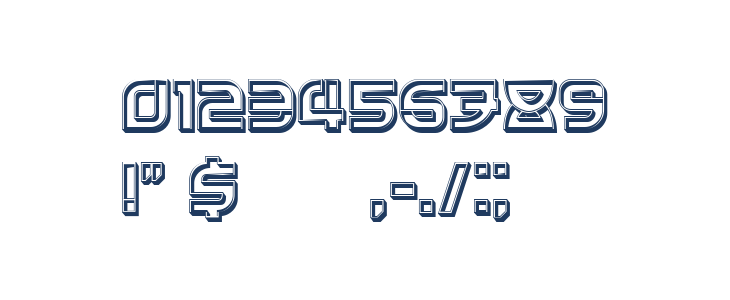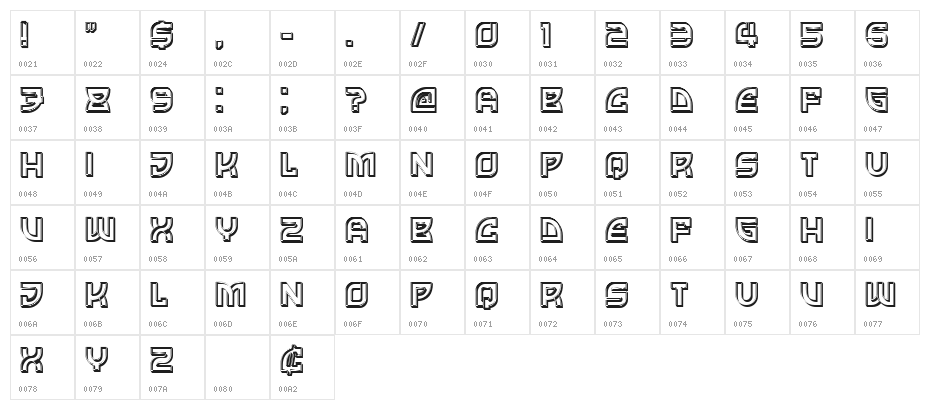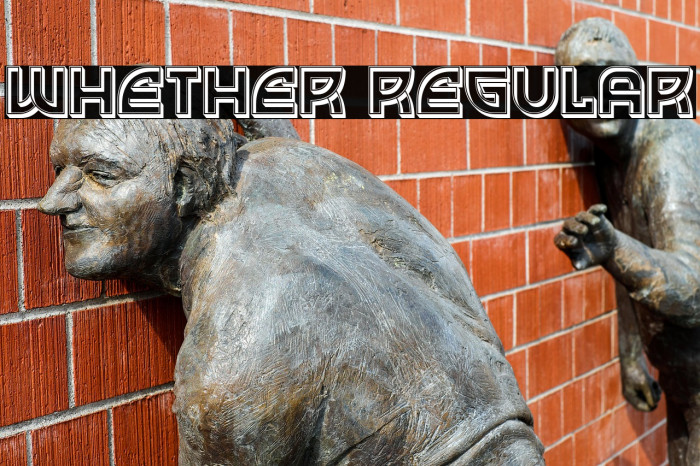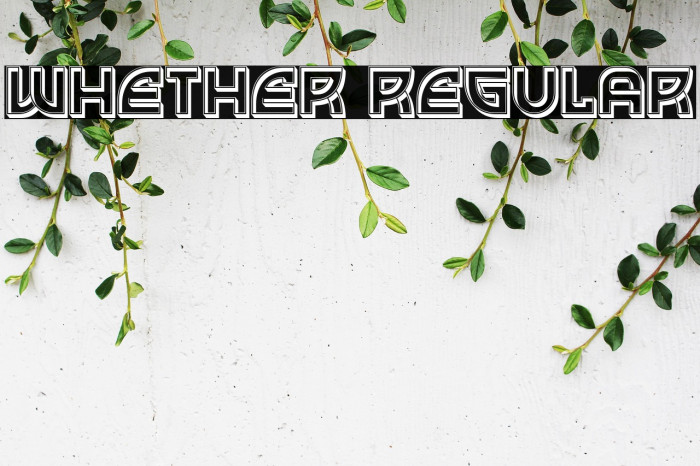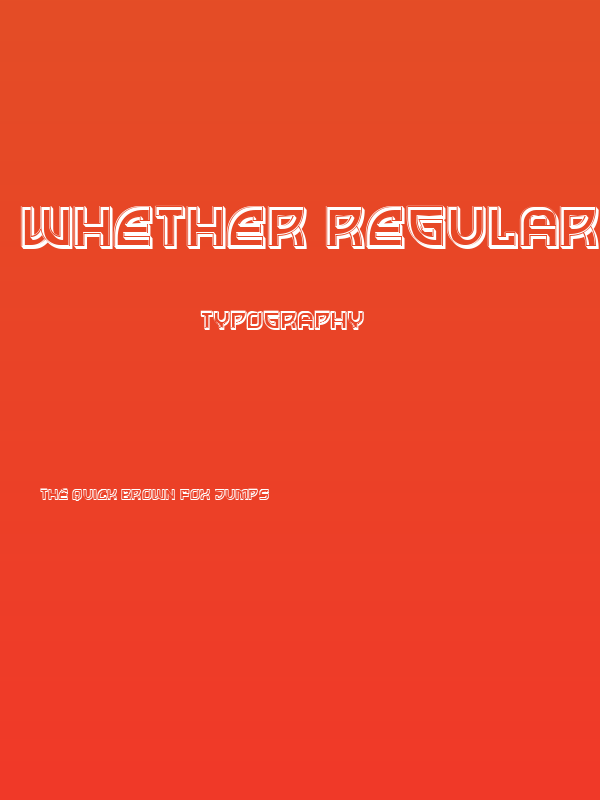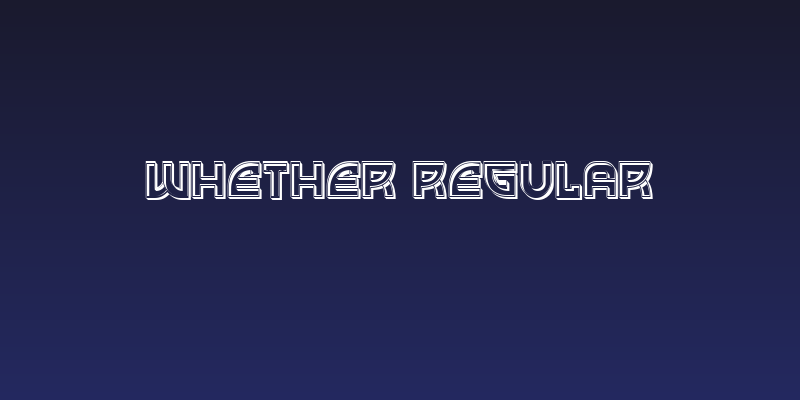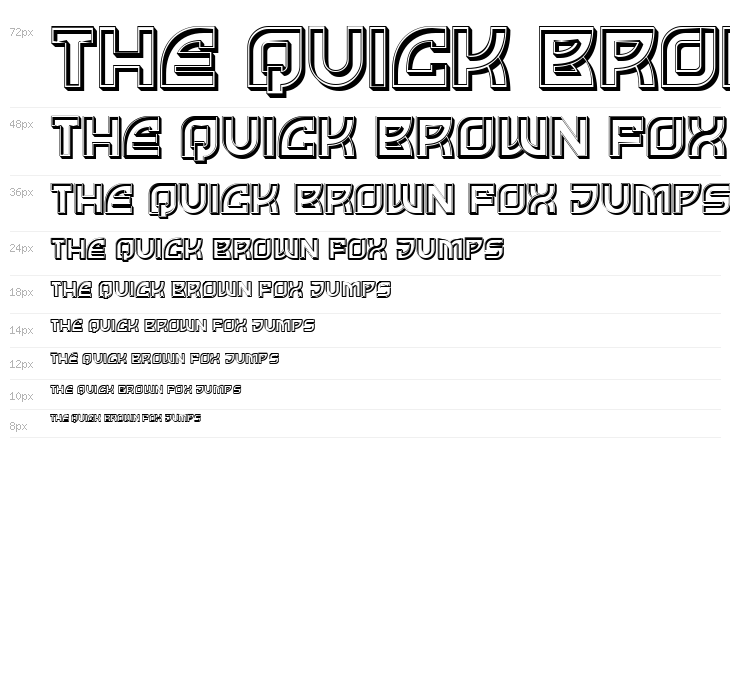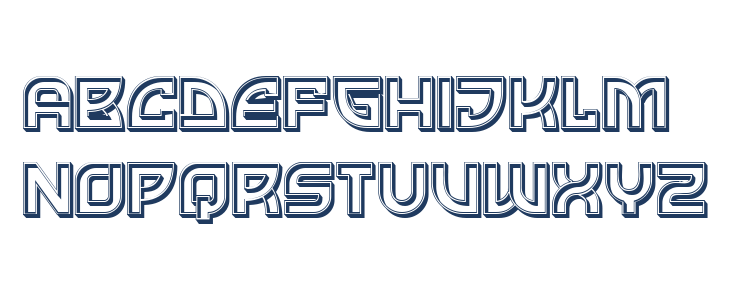
Whether Regular Font
Whether Regular Description
This font features a bold, geometric design with a three-dimensional effect created by its layered outline. Each character is constructed with sharp angles and clean lines, giving it a futuristic and dynamic appearance. The uppercase and lowercase letters maintain a consistent style, with a strong emphasis on symmetry and balance. The numerals and special characters are designed to complement the alphabet, ensuring a cohesive look across all text. This font's unique style makes it stand out, making it ideal for projects that require a modern and eye-catching typeface.